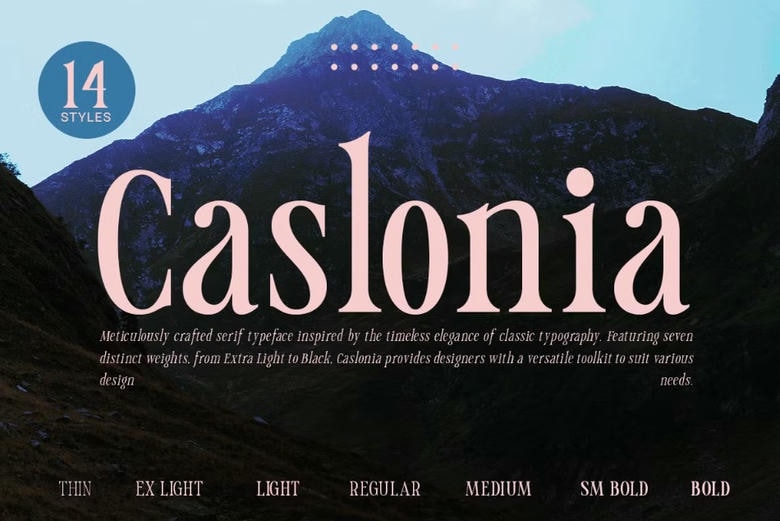
Caslonia Font Family
Caslonia Font Family is a newly designed and highly elegant serif font, which draws reference from the traditional fonts. Launched as a modern sans-serif font, this font comes with a neat set of 14 styles: seven standard weights and their corresponding italics: Thin, Thin Italic, Light, Light Italic, Regular, Italic, Bold, Bold Italic, Heavy, Heavy Italic, Black, Black Italic and Ultra Black Italic.
Due to its height being slightly taller than average and its slim typeface, Caslonia can benefit logo design, branding, and any luxury project that requires the overall sophistication and elegance. For designers aiming for that timeless look but with a contemporary twist,
Then Caslonia is a toolkit that is capable of meeting many design requirements whether you are designing a logo that is simply classy, creating luxury invitations or even enhancing the elegance of editorial designs. This popular typeface is also perfect for projects that need to be present, stylish and elegant.
Caslonia Serif Font Family